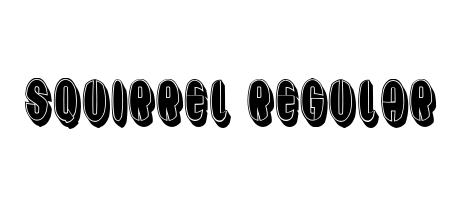
Squirrel
Squirrel Regular is a playful, bold display typeface. Its chunky, rounded letters have a slightly three-dimensional effect, created by subtle inner shadows. The design evokes a fun, retro aesthetic, reminiscent of 1950s or 60s cartoon lettering, making it suitable for eye-catching titles and logos. The letters are individually distinct yet maintain a consistent, cohesive style.